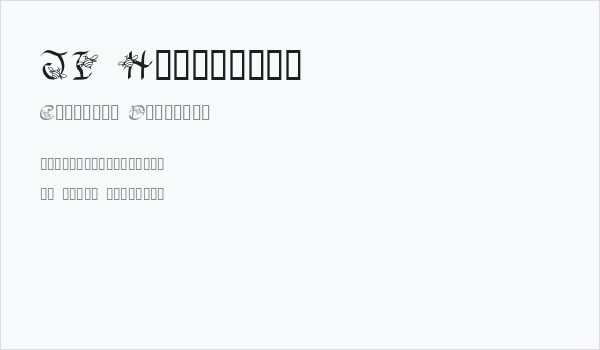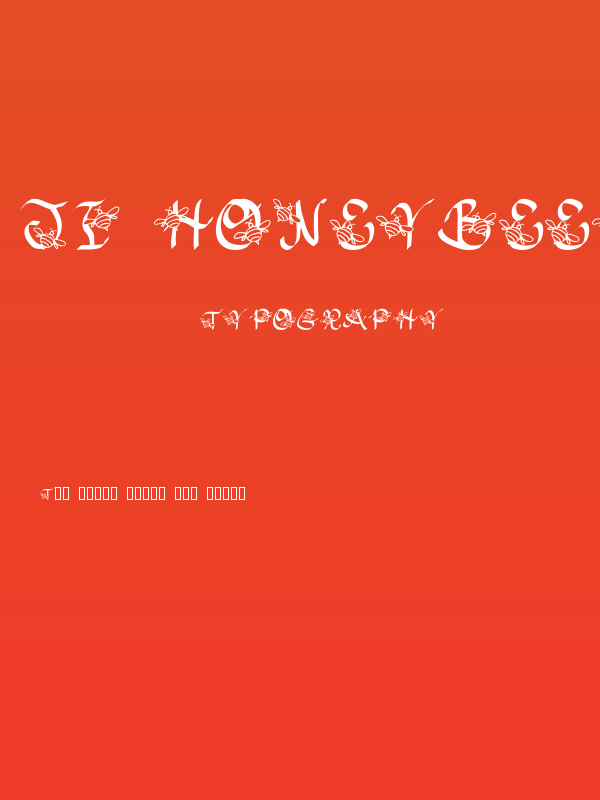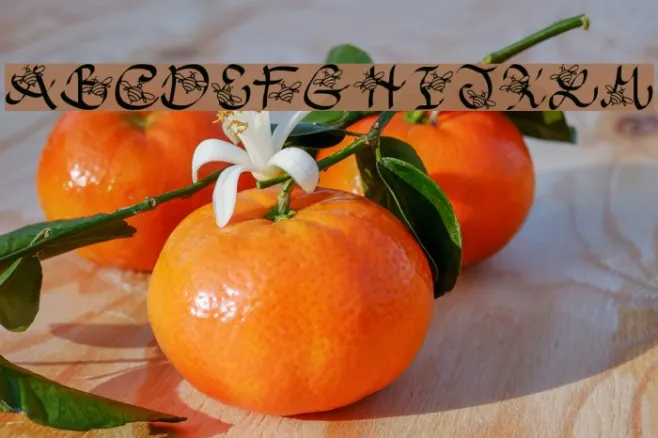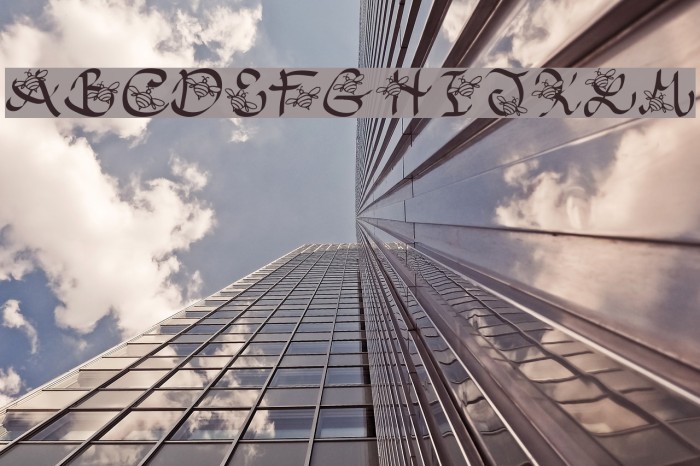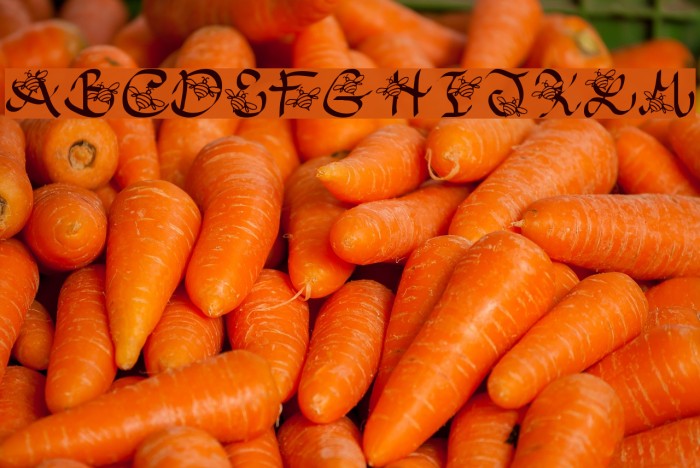
JI Honeybees Font
JI Honeybees Description
This font features an intricate and decorative style, incorporating bee and floral motifs into the design of each letter. The uppercase letters are adorned with detailed illustrations of bees and flowers, creating a whimsical and nature-inspired aesthetic. The overall appearance is both playful and elegant, making it suitable for projects that require a touch of creativity and uniqueness. The font's artistic elements are seamlessly integrated into the letterforms, ensuring readability while maintaining its decorative appeal.
| Use Case | Logos, Invitations, Packaging |
| Proposed Projects | Ideal for nature-themed invitations, eco-friendly brand logos, children's book covers, and creative packaging designs. |